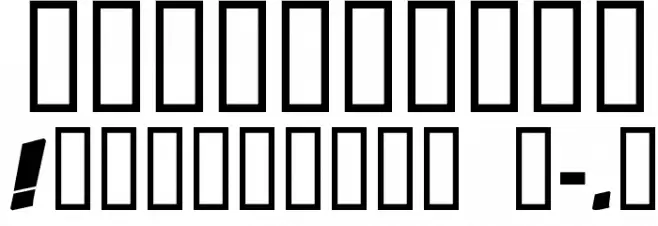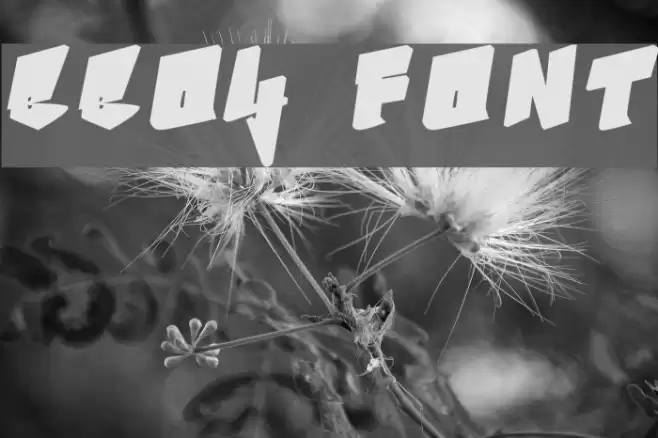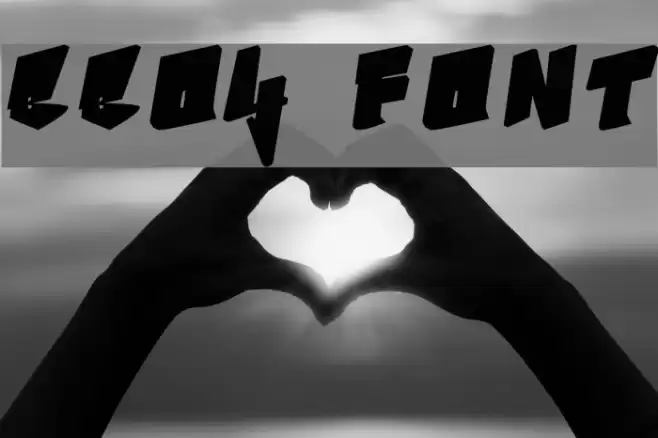
Bboy Font
Bboy Description
This font exhibits a bold and dynamic style with sharp, angular edges and a graffiti-like appearance. The characters are heavily stylized, featuring exaggerated geometric shapes that create a sense of movement and energy. The uppercase and lowercase letters maintain a consistent design, emphasizing the font's unique aesthetic. The numbers and special characters follow the same bold and edgy style, making them suitable for attention-grabbing designs. The font's overall look is modern and urban, ideal for projects that require a strong visual impact.
| Overall Style | Modern, Urban |
| Proposed Projects | Ideal for street art designs, urban-themed posters, music album covers, and edgy branding projects. |